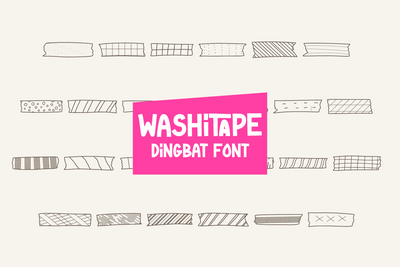
Washitape - Dingbat Font
Washitape is a Dingbat font containing glyphs in the form of torn duct tape in a cute doodle style. This font is inspired by the Crafter theme